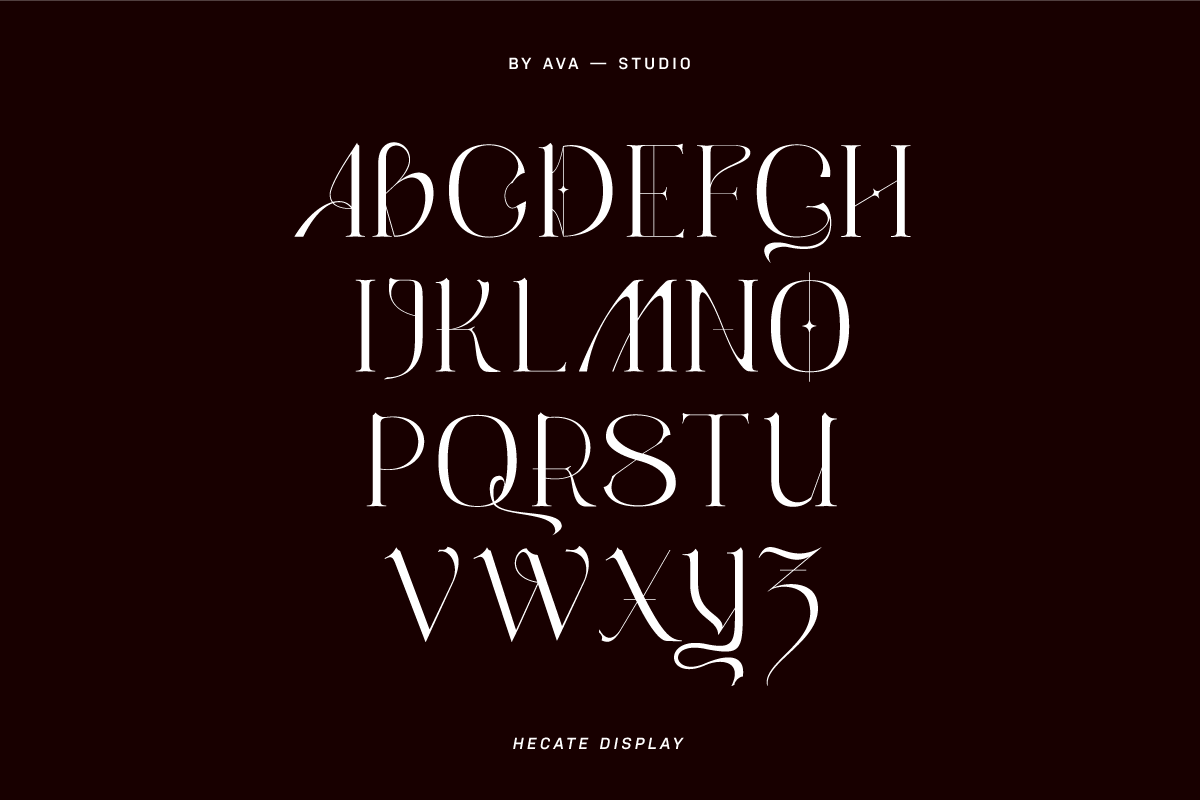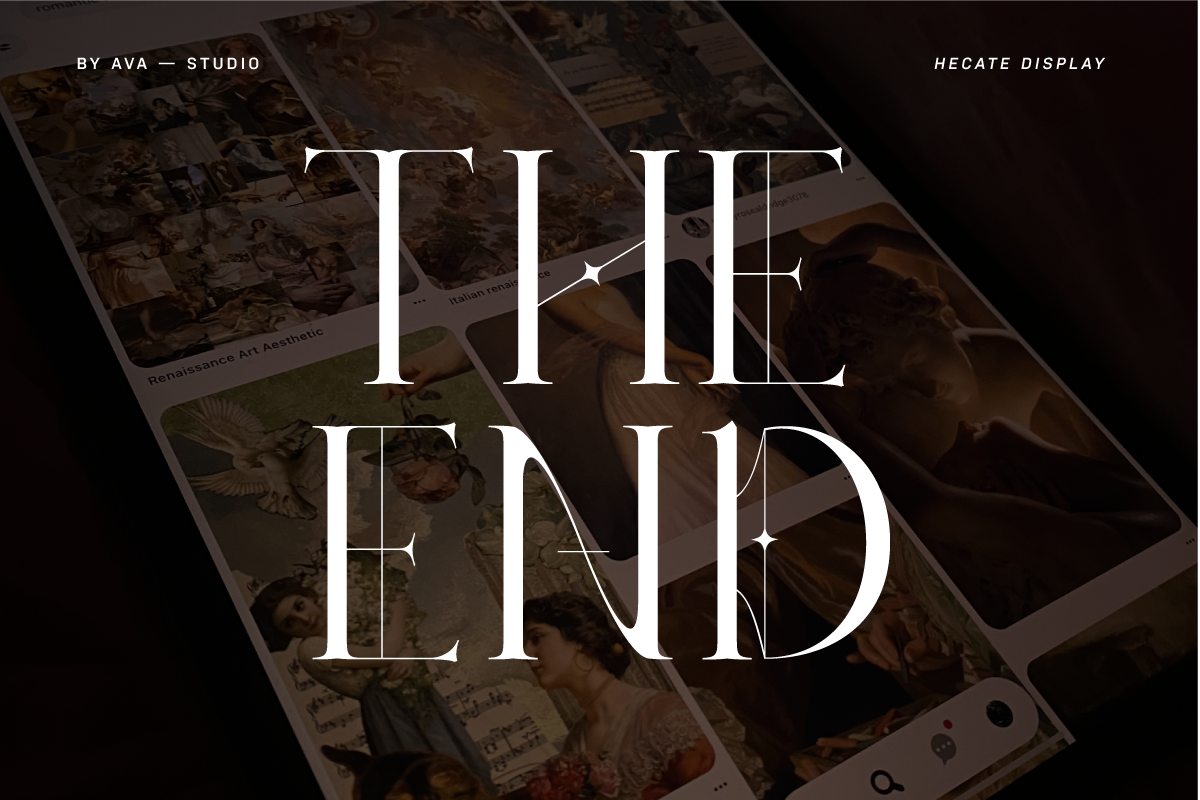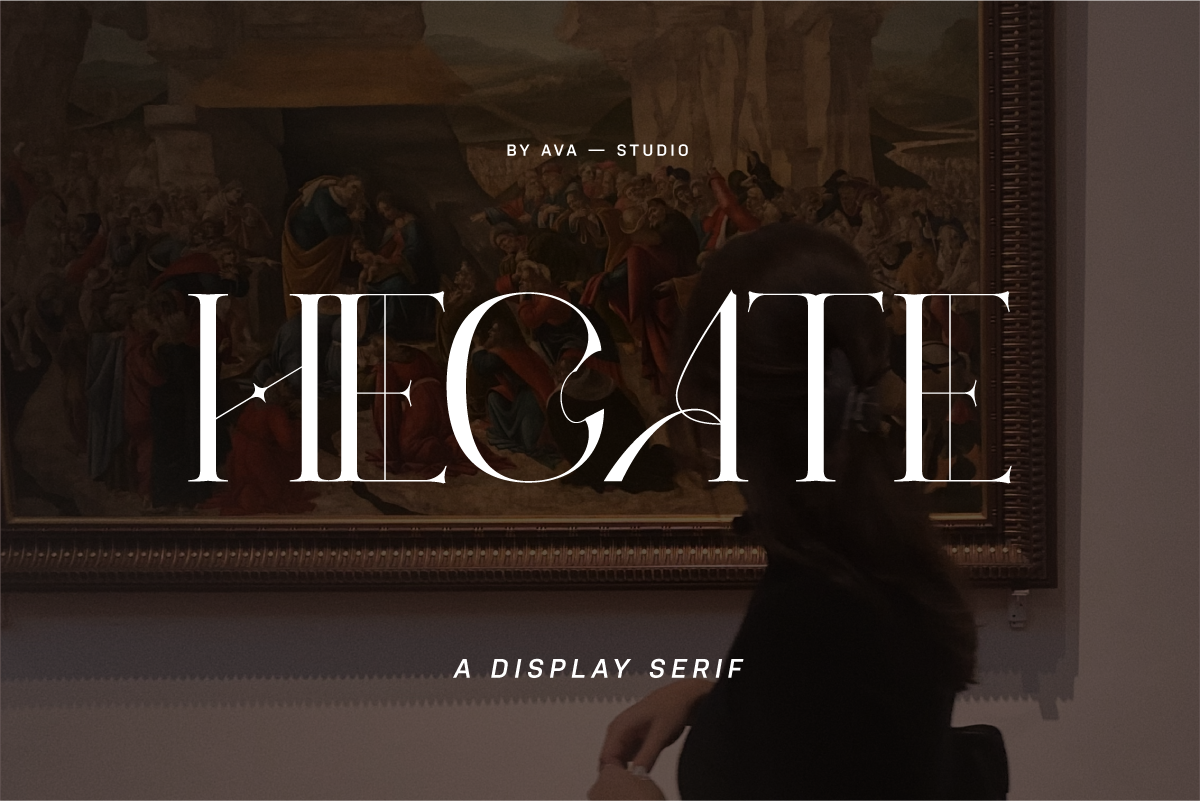
Hecate Display Font
Introducing Hecate Serif, a typeface that draws inspiration from the enigmatic Greek goddess Hecate and the ancient malleus maleficarum, embodying the essence of a modern witch.
With its sophisticated yet edgy appearance, Hecate Serif is perfect for conveying a sense of magic, independence, and enchantment in modern design projects. Let the spirit of the witching hour infuse your creations with Hecate Serif.